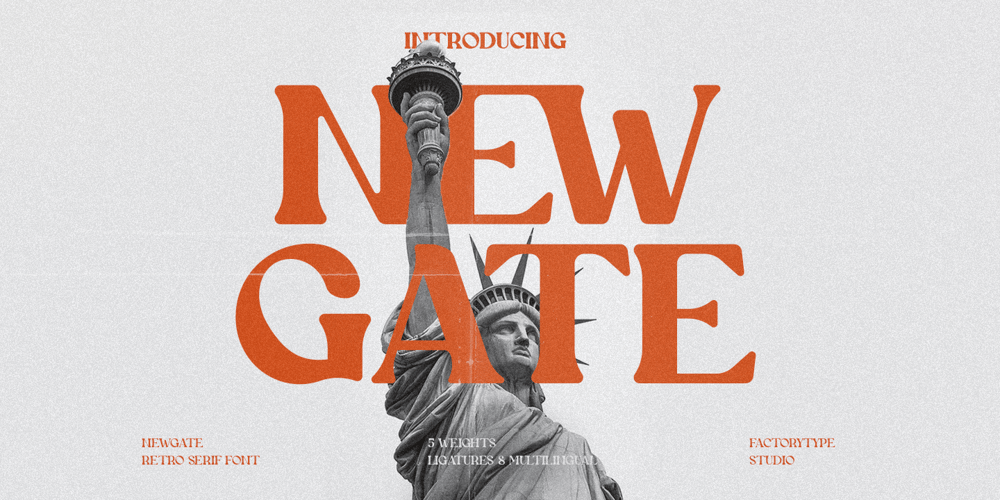
Newgate
Newgate font
Newgate Font Family was designed by Wahyu Rahmawan and published by Factory738. Newgate contains 10 styles and family package options. Introducing NEWGATE, a trendy font that is both retro and contemporary, is now available. Its thick curves give it a 70s groovy vibe, while the serifs return it to tradition. NEWGATE fits right in with those vintage moodboards and logos. It has separate lower and uppercase letters, as well as numbers, punctuation, and multilingual letters. The Ligature fonts will come in handy for anything your imagination can dream up! 5 Weights (Light, Regular, Semibold, Bold, Black) Basic Latin A-Z and a-z Numerals & Punctuation Stylistic Ligatures Multilingual Support for ä ö ü Ä Ö Ü … Free updates and feature additions Thanks for looking, and I hope you enjoy it.Check out Leonardo Sans which is a great pair for Newgate.